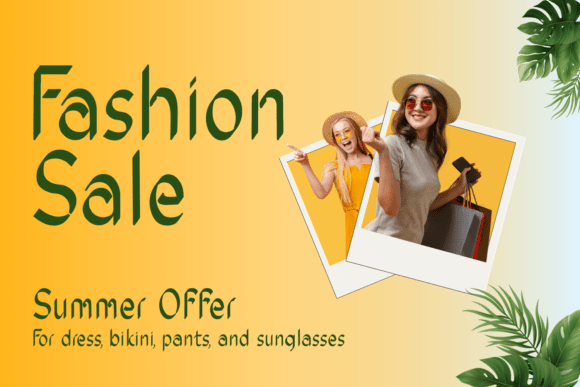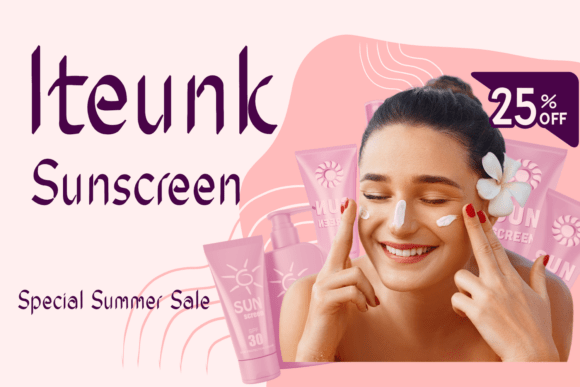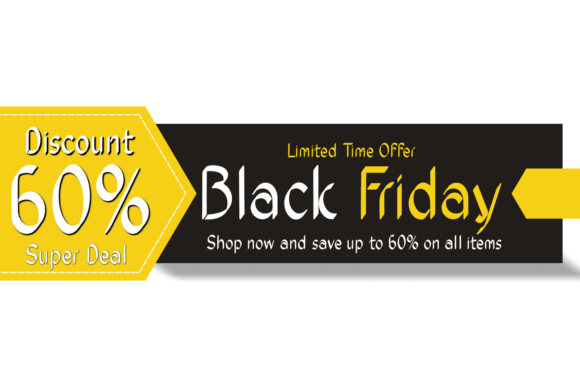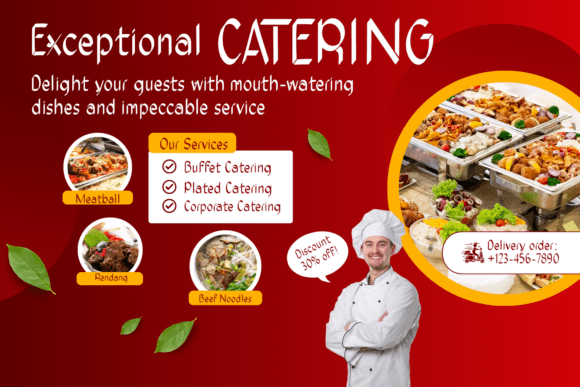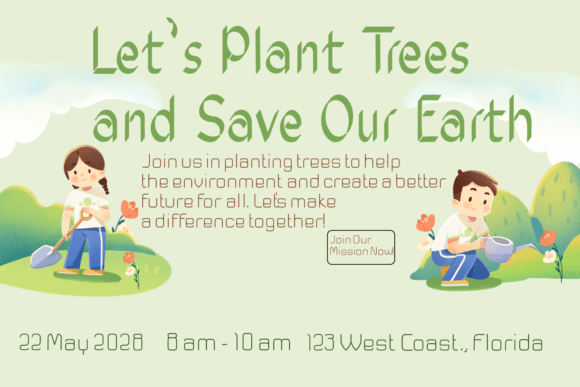
Introduction to Murisa Killick Font
Murisa Killick is a sweet and friendly handwritten font.
Key Features of Murisa Killick Font
Why Choose Murisa Killick Font?
Murisa Killick Font offers exceptional quality and versatility, making it a valuable addition to your design toolkit. Whether you’re creating for personal projects or commercial use, Murisa Killick Font delivers professional results.